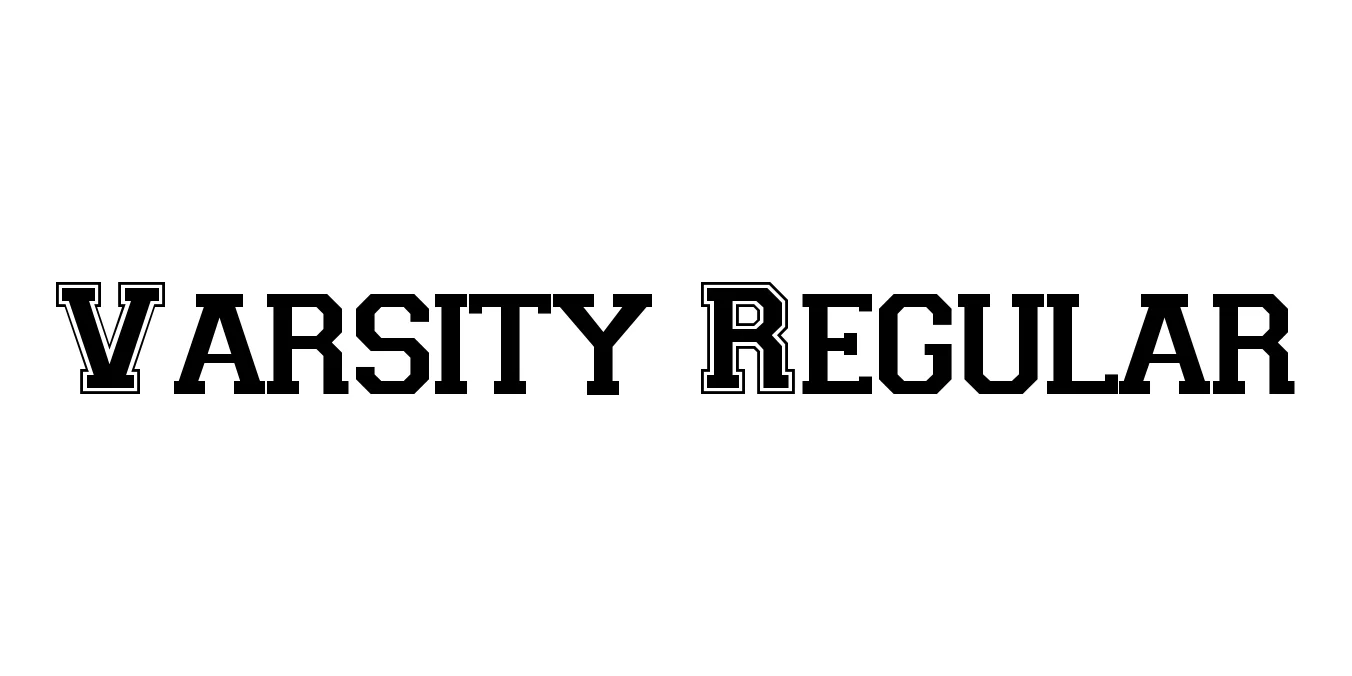
Varsity Regular
Designed by Brøderbund Software
| Category | Display / Athletic |
Varsity Regular is a quintessential display typeface that defines the classic collegiate and athletic aesthetic prevalent in American sports culture. Characterized by its heavy, slab-serif structure and distinctive outlined look, this font is instantly recognizable as the standard for university branding and team apparel. Its design conveys a sense of strength, heritage, and competitive spirit that has remained popular for decades.
The origins of the Varsity style can be traced back to the felt-stitched lettering used on varsity jackets and sports jerseys during the late 19th and early 20th centuries. In the digital transition, it has become an essential tool for graphic designers aiming to evoke nostalgia or represent academic institutions, proving its versatility across both physical merchandise and digital media platforms.
Varsity Regular Best Uses
Ideal for creating team logos, mascot identities, and sports department graphics.
The industry standard for screen-printed t-shirts, hoodies, and letterman jackets.
Perfect for bold headlines on homecoming posters, banners, and game-day announcements.
Excellent for branding university-related items like stickers, mugs, and stationery.